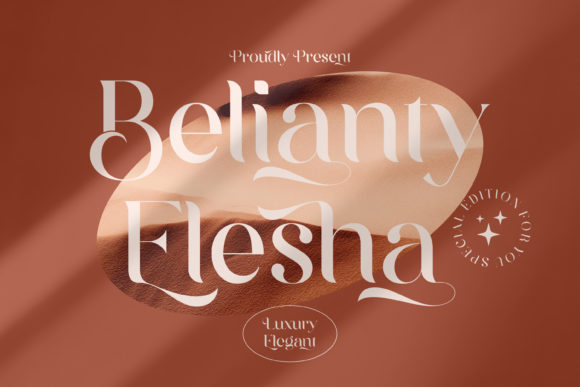
Unleash the Timeless Charm and Sophisticated Elegance of Belianty Elesha: A Serif Font that Redefines Modern Web Design
In a world where digital aesthetics reign supreme, the choice of font plays a pivotal role in shaping a website's personality and capturing the hearts of visitors. Introducing Belianty Elesha, a serif font designed to elevate your web presence with its timeless charm and sophisticated elegance.
Crafted by the visionary minds at Storytype Studio, Belianty Elesha is more than just a collection of characters; it's an artistic masterpiece that breathes life into your digital creations. As a serif font, it exudes an air of tradition and sophistication, reminiscent of classic literature and enduring design principles.
Journey through the realm of Belianty Elesha's glyphs, each meticulously crafted with delicate curves and graceful serifs. These elements intertwine harmoniously, creating a visual symphony that dances across the screen. The result is a font that radiates elegance while maintaining a contemporary and fresh aesthetic.
But Belianty Elesha's allure extends beyond its visual appeal. It's a font engineered for versatility, seamlessly adapting to a wide range of web design projects. Whether you're crafting a minimalist portfolio, an engaging blog, or an immersive e-commerce platform, Belianty Elesha effortlessly enhances the user experience.
Embrace the power of PUA encoding, a revolutionary feature that grants you effortless access to a treasure trove of glyphs and swashes. Unleash your creativity and explore endless possibilities as you incorporate these embellishments into your designs. With Belianty Elesha, customization knows no bounds.